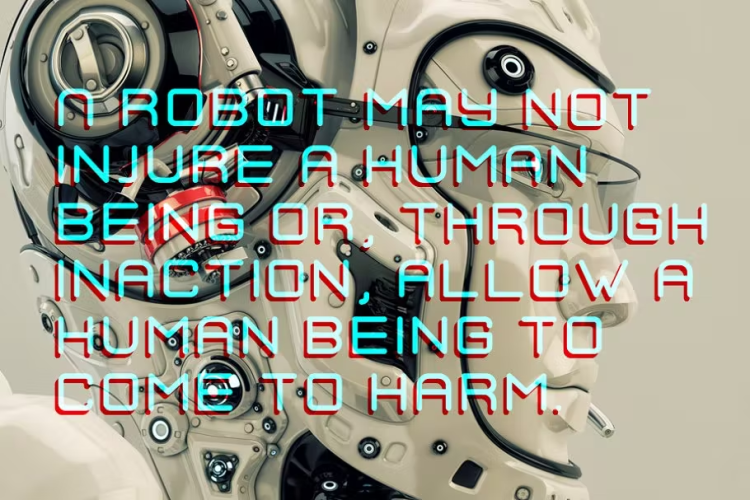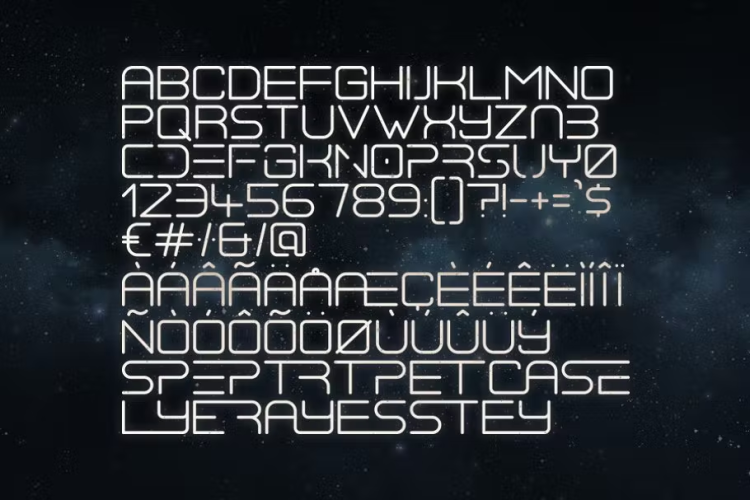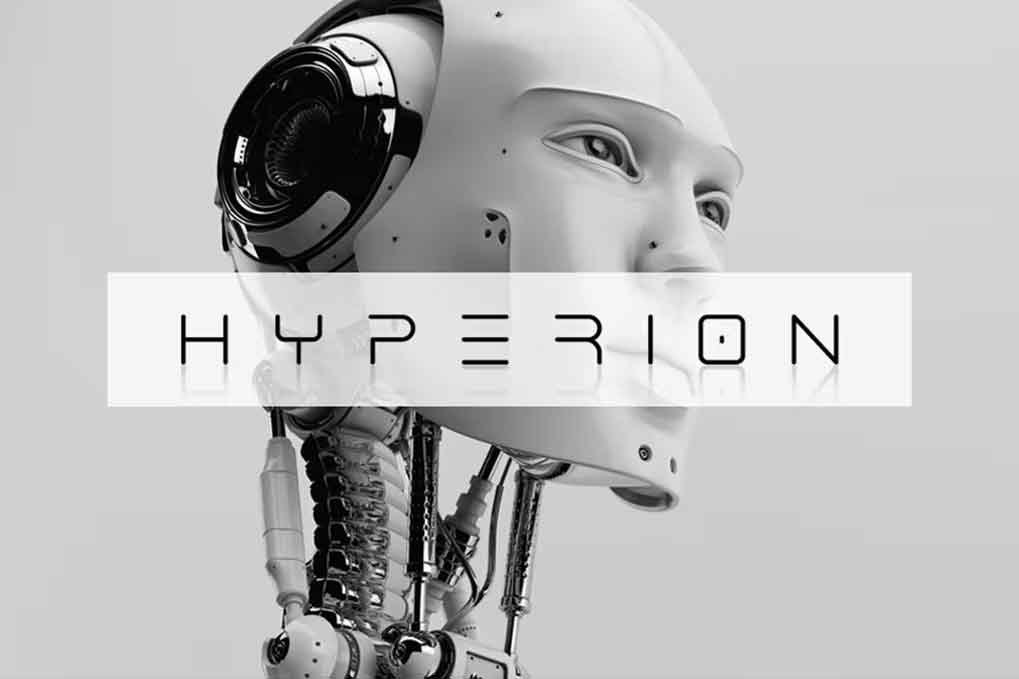
Hyperion Typeface Font
Hyperion is a flexible futuristic typeface for all your sci-fi needs.
Hyperion Typeface Font is a Sans Serif Fonts font that brings a professional and versatile look to your projects. Hyperion is a flexible futuristic typeface for all your sci-fi needs.